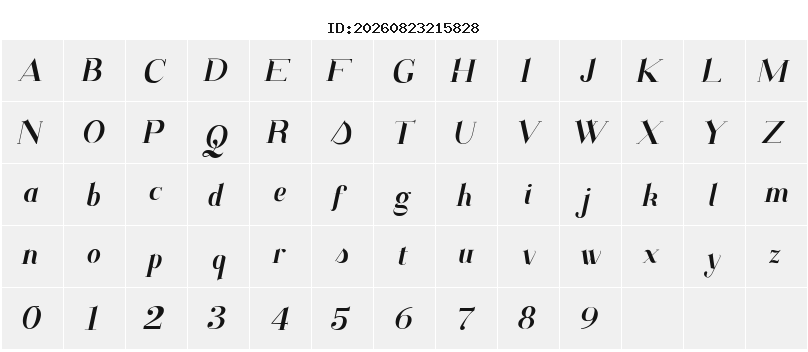
Santander Preview
• Font Name: Santander
• Font Style: italic
• Font ID: TypeSailor-DavidEspinosa: Santander italic: 2014
• Full Font Name: Santander italic
• PostScript Name: Santander-italic
• Character Count: 231
• Designer: Type Sailor
• Manufacturer: Type Sailor - David Espinosa
About Santander.ttf
Santander.ttf is a modern, elegant sans-serif font designed for ultimate readability and visual harmony. Perfect for branding, headlines, web design, and print materials.